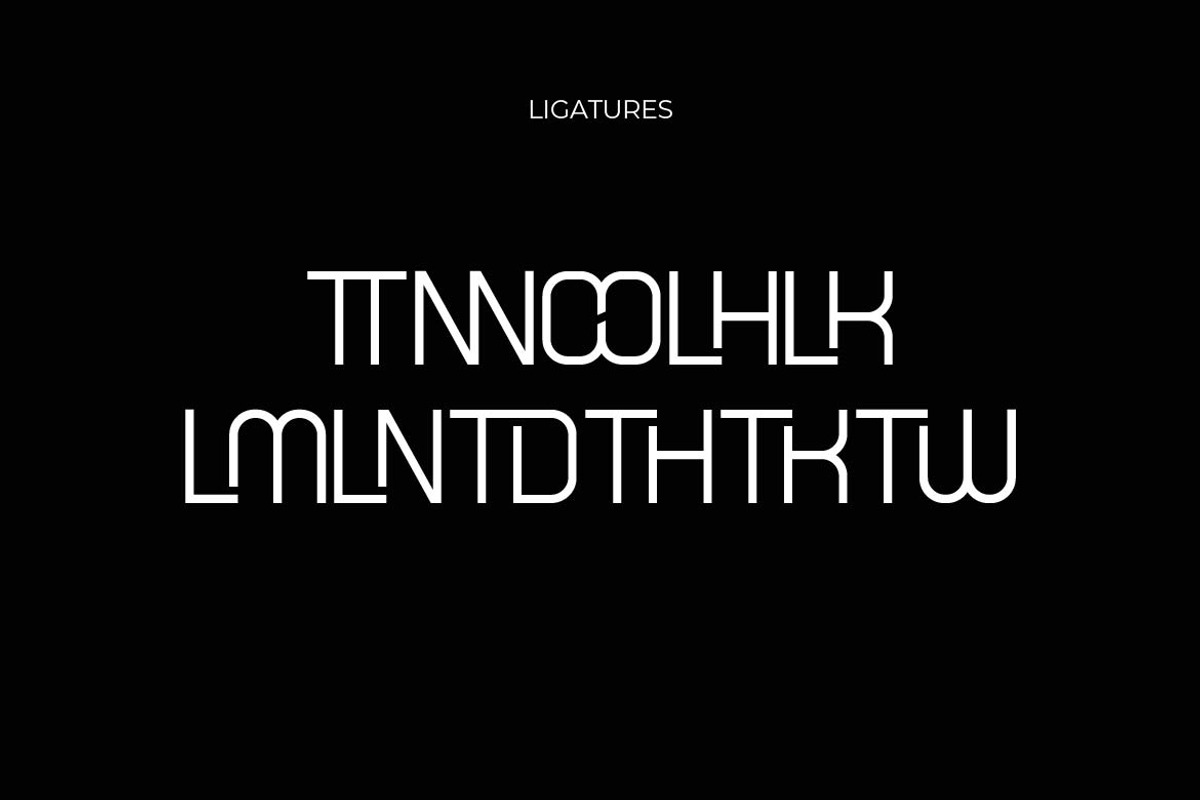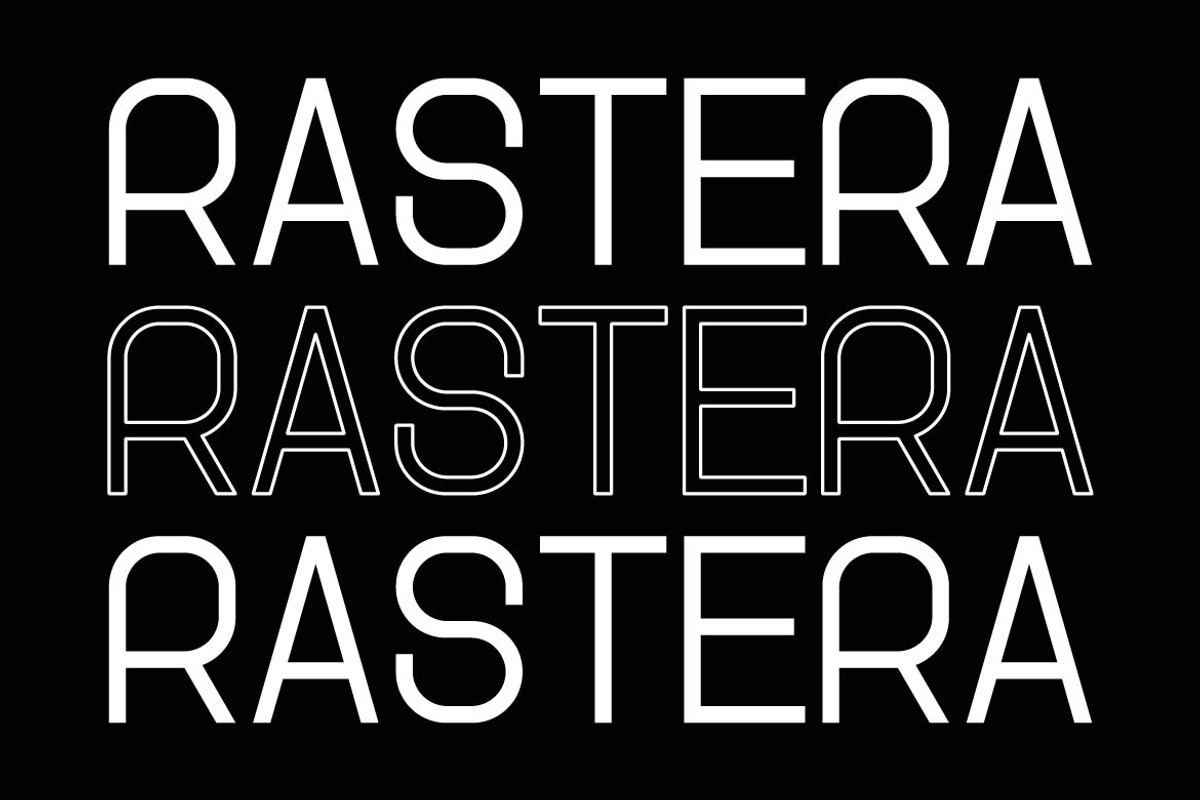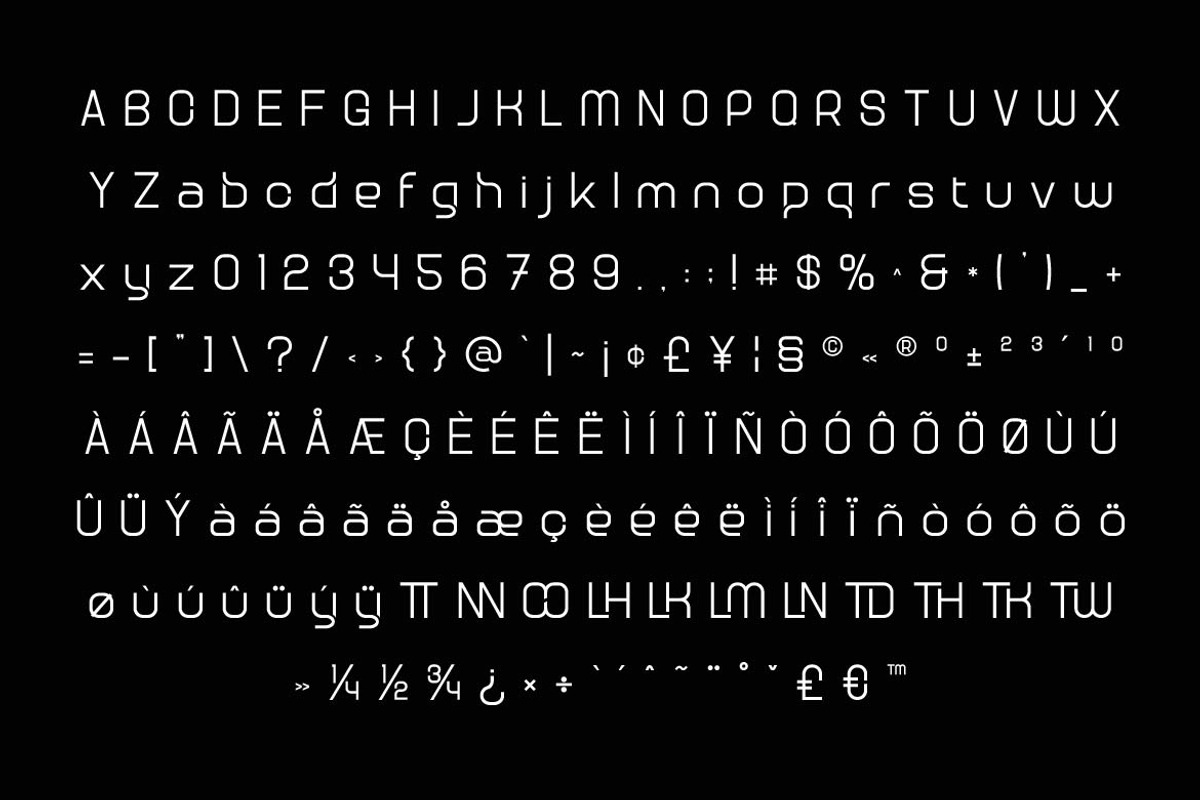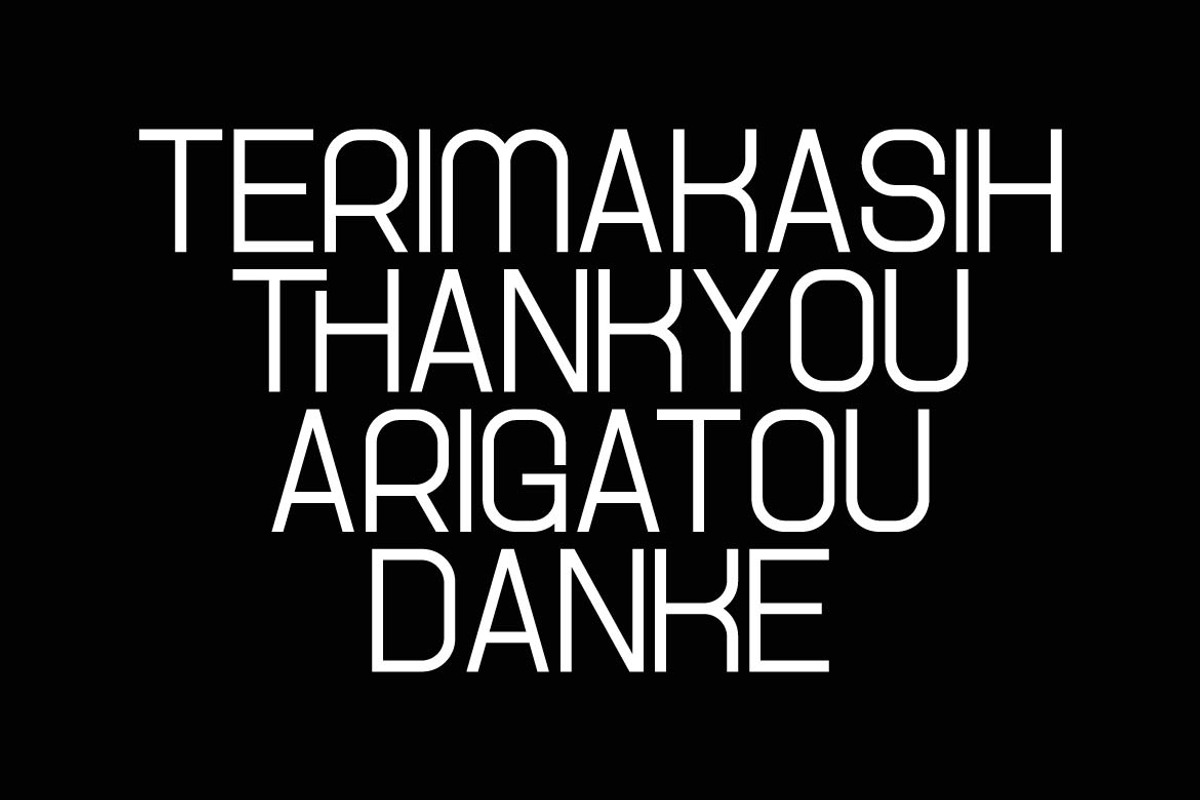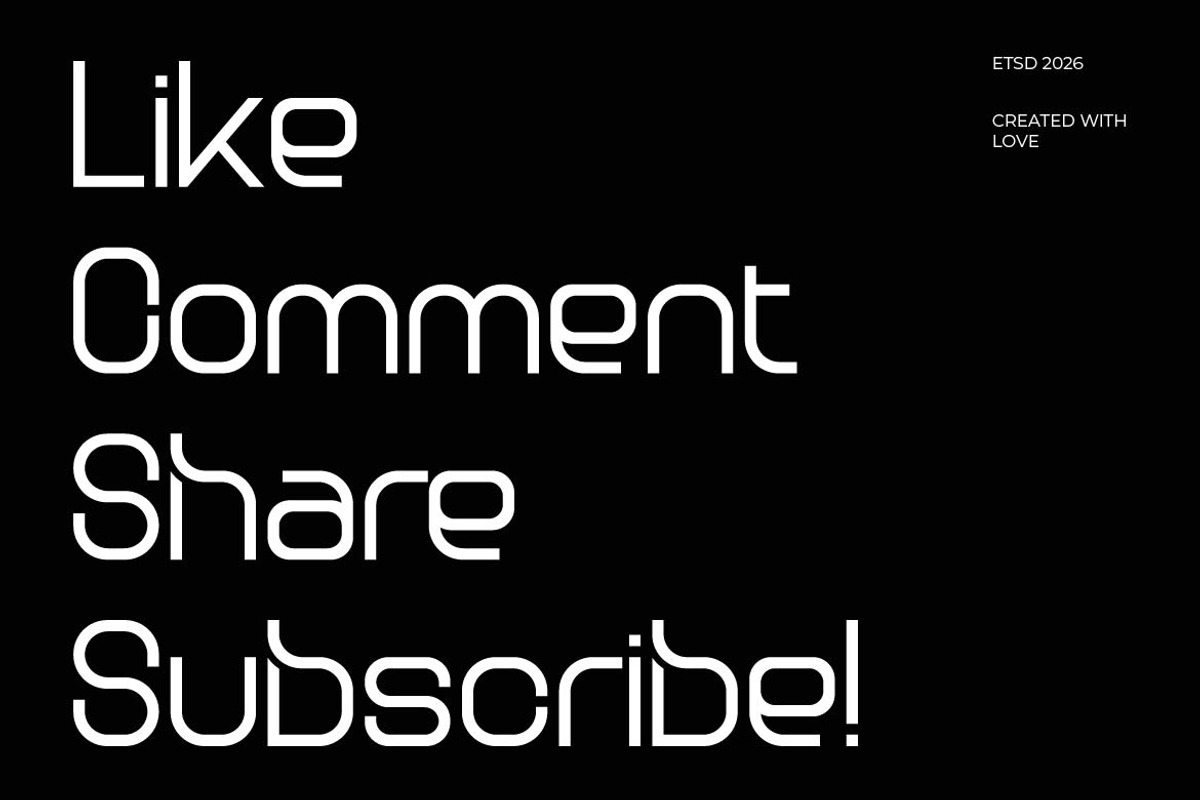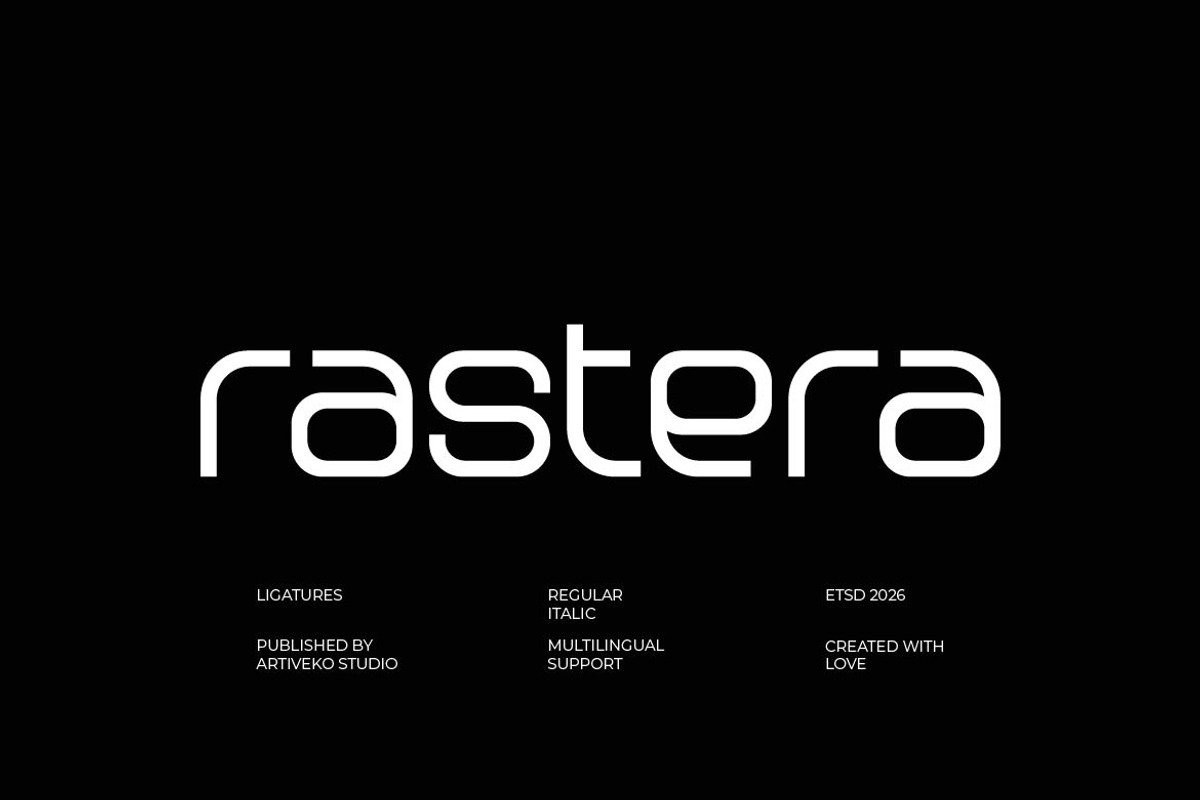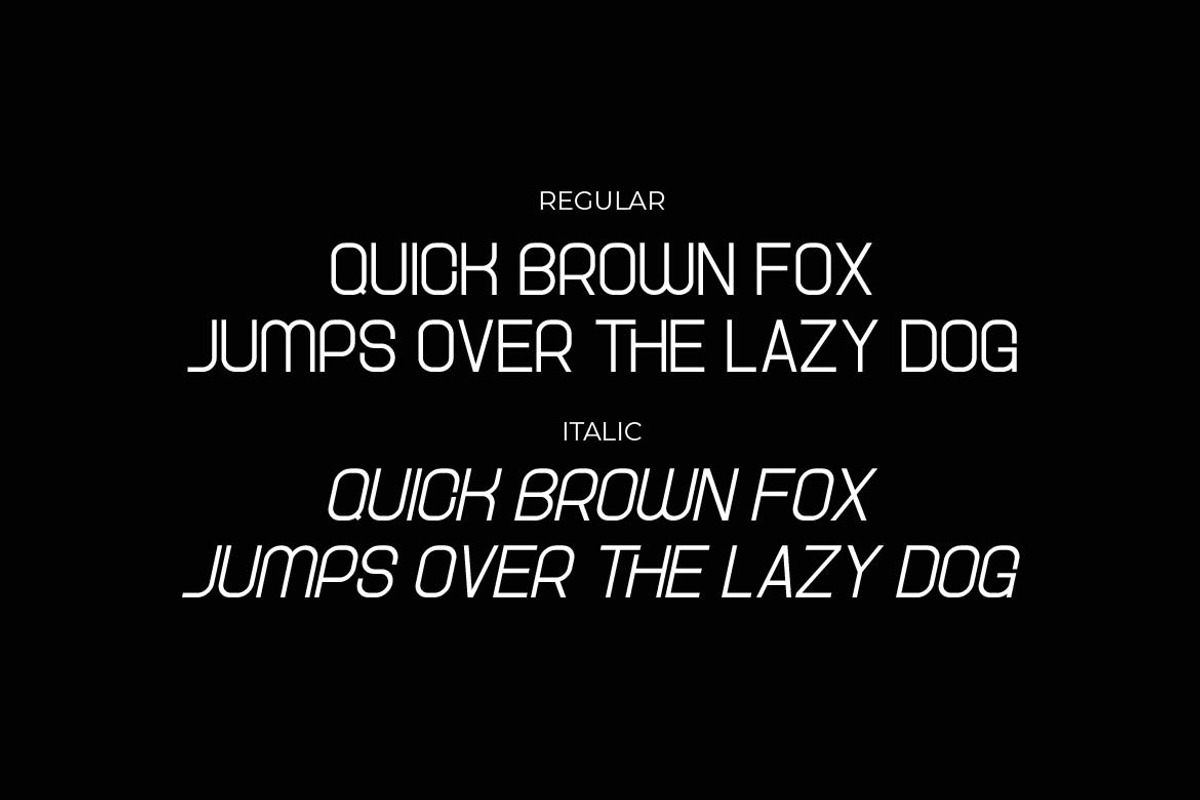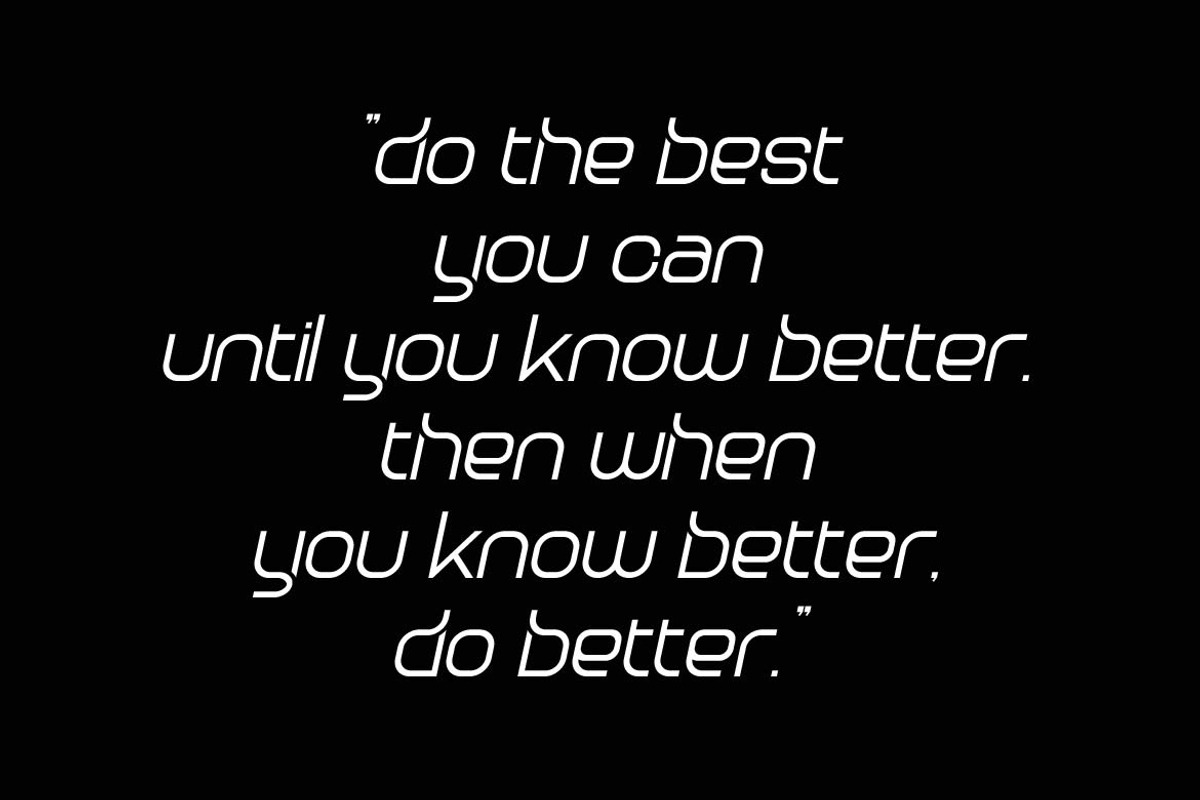
Rastera – Minimalist Sans Serif
Rastera is a minimalist sans serif typeface designed with clarity, simplicity, and modern elegance in mind. With clean lines, balanced proportions, and refined spacing, Rastera delivers a sleek and professional look that fits perfectly into contemporary design systems.